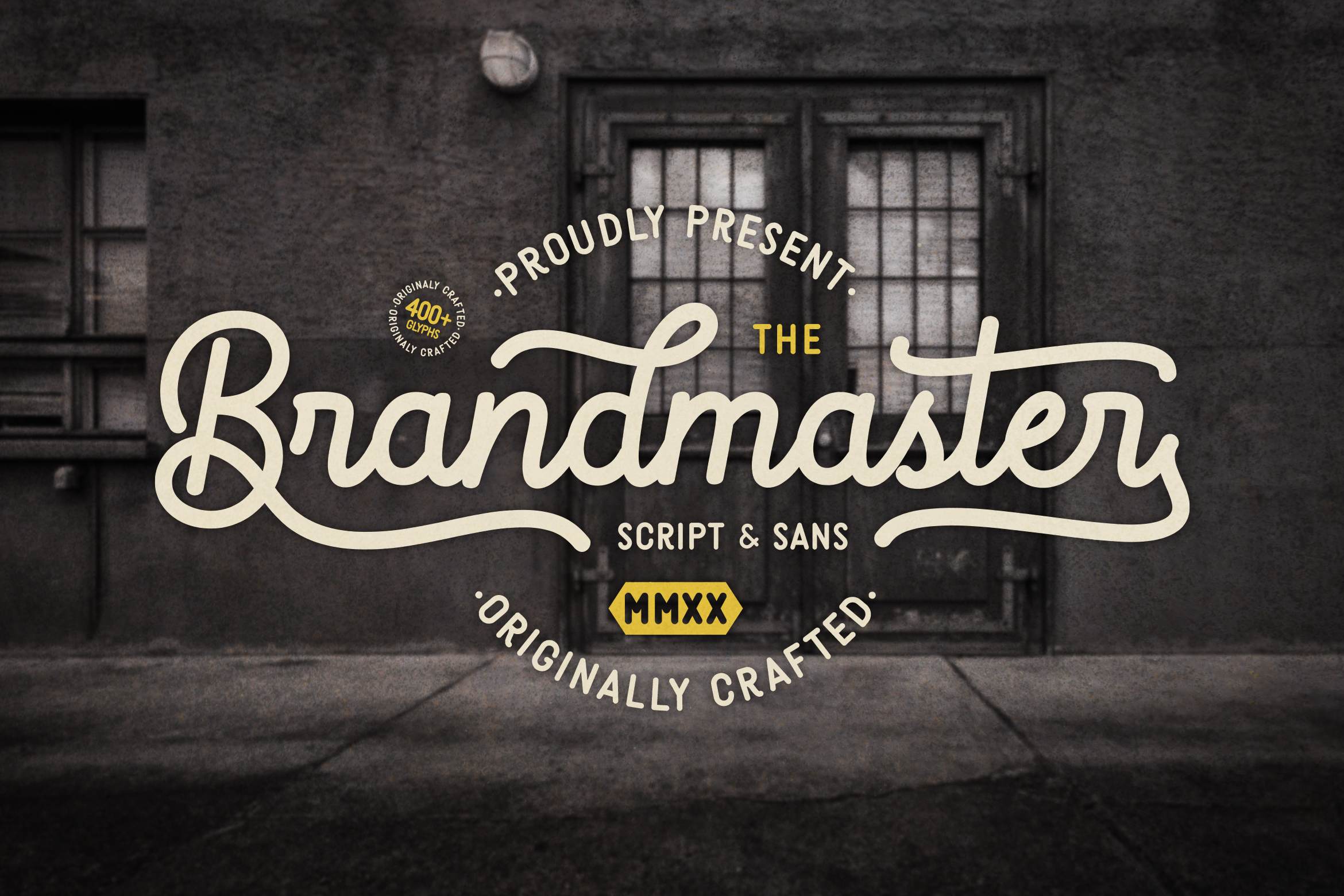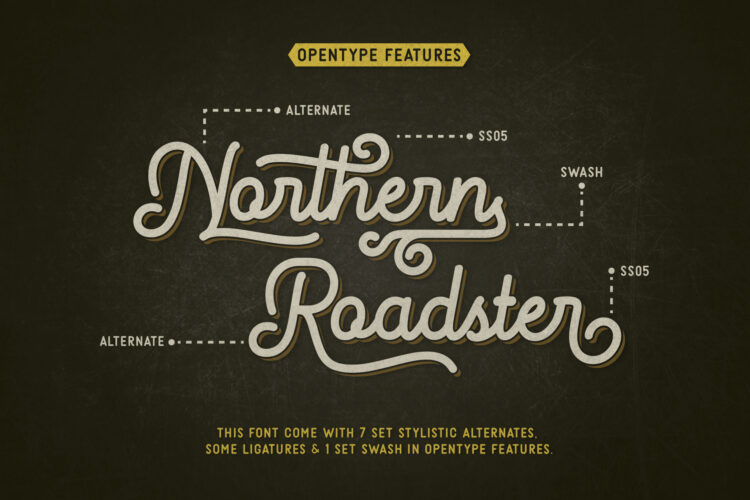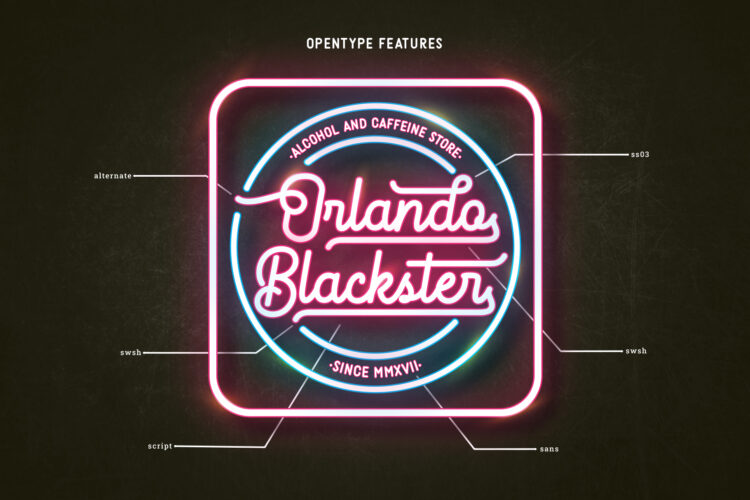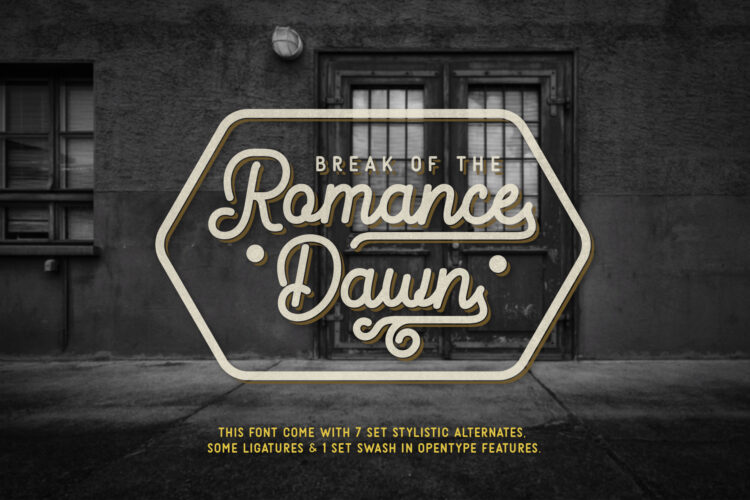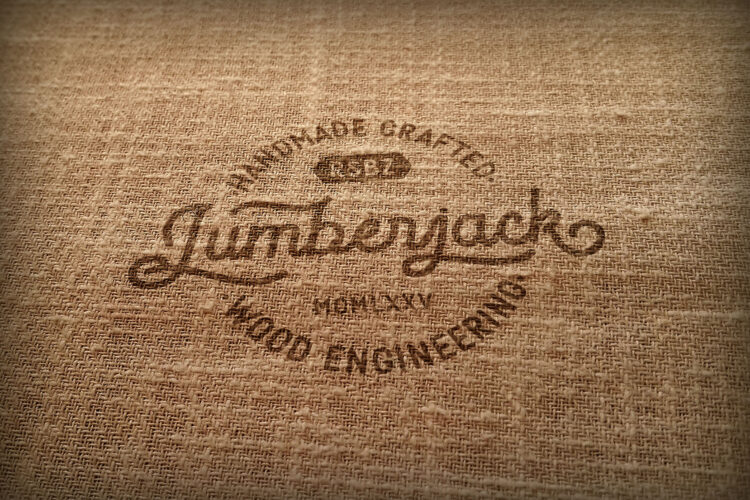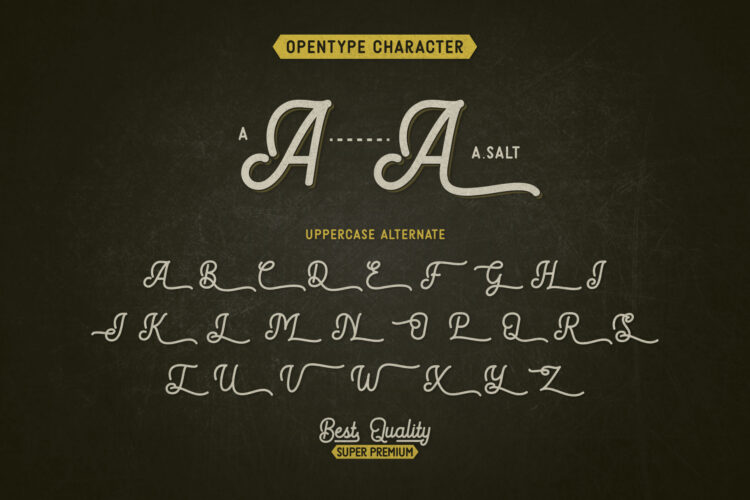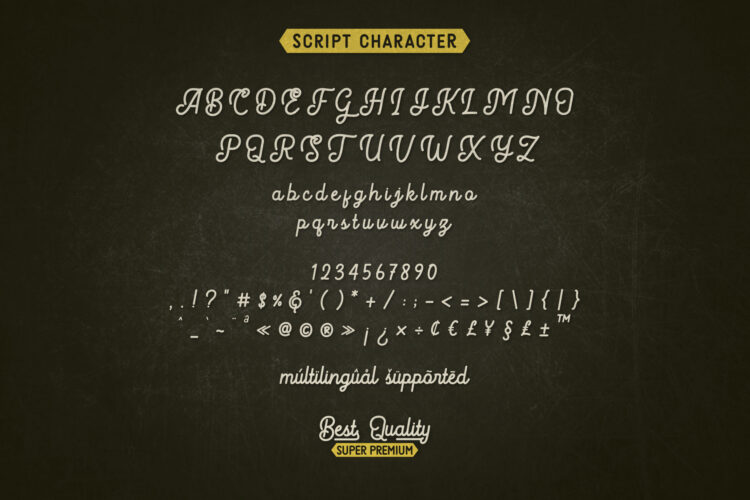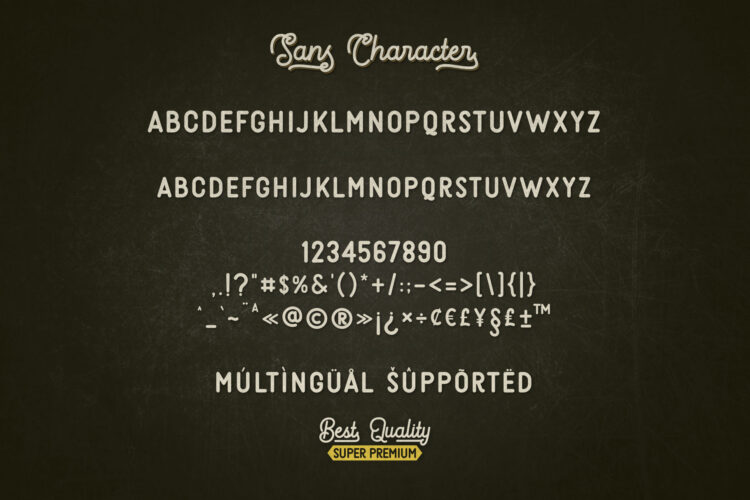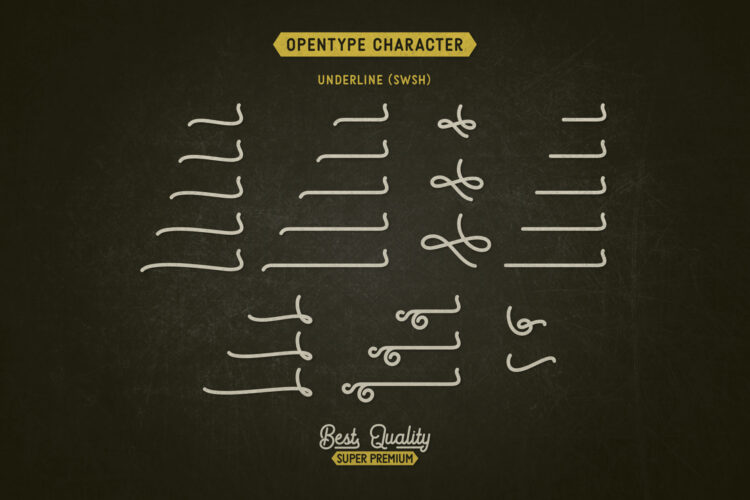
Brandmaster is a hand-crafted Script & Sans font duo that captures the essence of vintage design with a modern touch.
Featuring over 400 meticulously designed glyphs, this typeface is perfect for branding, retro packaging, signage, apparel, and logo design.
The script font brings a bold and flowing personality, while the sans counterpart complements it with clean and versatile readability.
Whether you’re aiming for a nostalgic feel or a timeless branding statement, **Brandmaster** offers the perf…
Brandmaster – Script & Sans Font